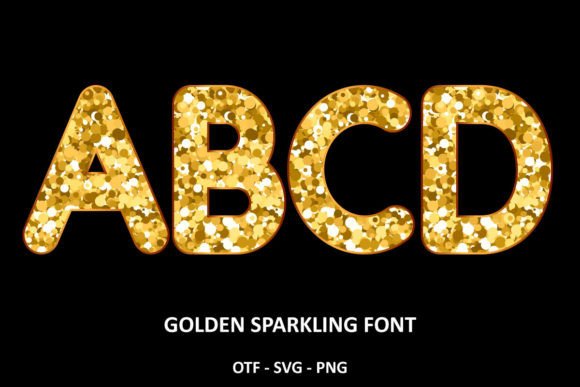
Golden Sparkling: A Font That Adds Instant Class
There’s something about gold that stops people in their tracks. It’s warm, it’s luxurious, and it carries a weight of elegance that few other elements can match. Now imagine capturing that feeling in a typeface. Golden Sparkling does exactly that. This isn’t just another decorative font—it’s a creative asset designed to make your work shine, quite literally. Whether you’re building a brand identity, designing social media graphics, or crafting packaging that needs to pop off the shelf, this font brings a polished, high-end aesthetic that’s hard to ignore.
What Makes Golden Sparkling Stand Out
At its core, Golden Sparkling is a display font with personality. Its letterforms feature a refined, serif-inspired structure with subtle decorative flourishes that give it a distinctly modern yet timeless appeal. The built-in golden shimmer effect adds depth and dimension, making each character feel almost three-dimensional. It doesn’t scream for attention—it commands it with quiet confidence.
The font strikes a balance between ornate and readable. While it leans toward the decorative side, the letter spacing and proportions are carefully considered so that words remain legible even at smaller sizes. This makes it versatile enough for headlines, logos, and short blocks of text where impact matters more than body-copy clarity.
What really sets Golden Sparkling apart is its ability to convey luxury without feeling stuffy or outdated. It avoids the trap of looking overly traditional or overly trendy. Instead, it sits in a sweet spot that feels fresh, sophisticated, and approachable—qualities that resonate across industries from fashion to food, beauty to boutique retail.
Where Golden Sparkling Truly Shines
This font is a natural fit for projects where visual impact and brand perception go hand in hand. Think about logo design for a jewelry brand, a high-end cosmetics line, or a boutique hotel. Golden Sparkling immediately communicates quality and exclusivity, helping small businesses and entrepreneurs position themselves alongside established luxury names.
It also performs exceptionally well in editorial design and publishing. Magazine covers, book titles, and event invitations benefit from its ability to draw the eye and set a mood. If you’re designing a wedding invitation suite or a gala event poster, this typeface delivers the elegance those moments deserve.
For digital creators, Golden Sparkling works beautifully in social media graphics, YouTube thumbnails, and website headers. It photographs well and holds its own against busy backgrounds, making it a reliable choice for Instagram posts, Pinterest pins, and promotional banners. The golden effect translates particularly well on screen, where lighting and color saturation can enhance its visual appeal.
Packaging design is another area where this font excels. Whether it’s a candle label, a chocolate box, or a skincare product, the typeface adds an immediate sense of premium quality. Consumers often judge products by their packaging first, and a font like Golden Sparkling helps communicate that what’s inside is worth the investment.
Practical Guidance for Using This Font
Before committing to Golden Sparkling for a project, consider the tone and audience you’re targeting. It’s ideal for brands and projects that lean into elegance, celebration, or sophistication. If your work calls for a playful, rugged, or minimalist aesthetic, this font might not be the right match—and that’s perfectly fine. Choosing the right typeface is about alignment, not forcing a style where it doesn’t belong.
Font pairing is worth considering carefully. Because Golden Sparkling is a display font with strong visual character, it pairs best with simpler companions. A clean sans serif font for body text creates a pleasing contrast that keeps designs balanced. Avoid pairing it with other ornate or script fonts, which can create visual clutter and reduce readability.
It’s also important to note the compatibility details. The black version of Golden Sparkling works with Cricut Design Space and other cutting machines, making it a solid choice for crafters and hobbyists creating physical products like decals, signs, and apparel. However, the color version—which includes the golden shimmer effect—is only compatible with certain design programs such as Photoshop, Illustrator, Silhouette Studio, and Inkscape. If you’re working in Cricut, stick with the black version or plan to use a compatible program for the color variant.
Finally, always test the font in context before finalizing a design. Mock up your logo, overlay it on your intended background, and view it at multiple sizes. What looks stunning at 72 points on a clean white canvas might feel different at 18 points on a textured background. Real-world testing is the best way to ensure a font works for your specific needs.
Whether you’re a seasoned designer or someone just starting to explore creative fonts, Golden Sparkling offers a versatile, visually striking option worth adding to your collection of design assets. Use it where it fits, pair it wisely, and let it do what it does best—make your work look exceptional.